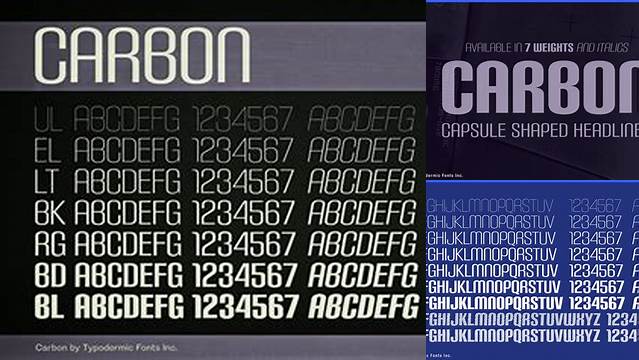
Hey guys! Ever stumbled upon a font that just screams modern and sleek? Chances are, it might just be Carbon font. This typeface has been making waves in the design world, and for good reason. It's versatile, stylish, and perfect for a ton of different projects. So, let’s dive deep into everything you need to know about Carbon font, from where to snag it for free to how to use it like a pro. Whether you’re a seasoned designer or just starting out, this guide will give you the lowdown on making the most of this awesome font.
What is Carbon Font?
So, what exactly is Carbon font? Well, it's a modern sans-serif typeface that’s known for its clean lines and geometric shapes. Imagine a font that’s both futuristic and classic – that’s Carbon in a nutshell. It’s super versatile, meaning you can use it for everything from logos and branding to website headers and body text. Think of it as the Swiss Army knife of fonts; it’s got a tool for every job. The crisp, minimalist design makes it incredibly readable, whether you’re viewing it on a screen or in print. This readability, combined with its stylish appearance, makes Carbon font a favorite among designers who want to convey a sense of innovation and sophistication.
1. Exploring the Origins of Carbon Font
Delving into the origins of Carbon font is like uncovering the history of a modern design marvel. Understanding where a font comes from can give you a deeper appreciation for its design and how to best utilize it. Carbon font, with its sleek and contemporary aesthetic, often has roots in the geometric sans-serif styles that gained popularity in the early 20th century. These fonts, inspired by the Bauhaus movement, emphasized simplicity and functionality. While the exact creator and history can vary depending on the specific Carbon font version, the core principles remain consistent: clean lines, geometric precision, and a modern feel. Knowing this heritage can help you leverage Carbon font in projects where you want to evoke a sense of modernity, innovation, and timeless design.
2. Key Characteristics of Carbon Font
Let's break down the key characteristics of Carbon font that make it so special. First off, it’s a sans-serif font, which means it doesn’t have those little “feet” or serifs at the end of the strokes. This gives it a clean and modern look. The geometric shapes are another standout feature. You’ll notice a lot of perfect circles and straight lines, giving it a structured and almost architectural feel. The font also boasts excellent readability, thanks to its balanced letterforms and ample spacing. This makes it a great choice for both headlines and body text. Finally, Carbon font often comes in various weights, from light to bold, giving you plenty of flexibility to play with different visual hierarchies in your designs. Understanding these characteristics is key to using Carbon font effectively.
4. Carbon Font vs. Other Sans-Serif Fonts
How does Carbon font stack up against other sans-serif fonts? Well, the sans-serif world is a crowded place, with fonts like Helvetica, Arial, and Open Sans being popular choices. Carbon font distinguishes itself with its sharper, more geometric edges and a slightly more modern feel. While Helvetica and Arial are known for their neutrality and wide applicability, Carbon font brings a bit more personality to the table. Open Sans is another great option for readability, but Carbon font often has a stronger visual impact, making it ideal for branding and headlines. Ultimately, the best font depends on the project, but Carbon font is a fantastic contender if you’re looking for something that’s both clean and contemporary.
5. Using Carbon Font in Graphic Design
Time to get practical! How can you use Carbon font in your graphic design projects? Its versatility makes it a winner for a wide range of applications. For logos, its strong, geometric forms can convey a sense of stability and modernity. In website design, Carbon font works beautifully for headers and navigation menus, providing a clean and readable user experience. When it comes to print materials, like brochures and posters, Carbon font's clarity ensures your message gets across effectively. Experiment with different weights and sizes to create visual hierarchy and draw attention to key information. Whether you’re designing a minimalist website or a bold marketing campaign, Carbon font can help you achieve a polished and professional look.
6. Carbon Font in Web Design
In the realm of web design, Carbon font can be a game-changer. Its clean lines and excellent readability make it perfect for creating a user-friendly and visually appealing website. Use it for headlines to grab attention and establish a clear hierarchy, and employ it in body text to ensure a comfortable reading experience. Carbon font also shines in navigation menus, where its clarity helps users easily find their way around your site. Pair it with other fonts strategically – a serif font for body text, for instance – to create a balanced and engaging design. Plus, its modern aesthetic aligns well with contemporary web design trends, helping your site look fresh and up-to-date.
7. Pairing Carbon Font with Other Fonts
Font pairing is an art, and when it comes to Carbon font, finding the right partner can elevate your design to the next level. Since Carbon font is a sans-serif, it often pairs well with serif fonts, creating a pleasing contrast that adds visual interest. Think of pairing it with a classic serif like Garamond or a more modern option like Playfair Display. The key is to balance the clean, geometric nature of Carbon font with the more traditional or decorative elements of the serif font. Another approach is to pair Carbon font with a different sans-serif font that has a softer, more rounded appearance. This can create a harmonious and balanced look while maintaining a modern feel. Experiment and see what combinations resonate with your project’s aesthetic!
8. The Popularity of Carbon Font in Branding
Why is Carbon font so popular in branding? Well, it boils down to its ability to convey a sense of modernity, sophistication, and reliability. These are qualities that many brands strive to project. Its clean lines and geometric shapes give it a professional and trustworthy appearance, making it a great choice for logos, business cards, and marketing materials. Carbon font’s versatility also means it can be adapted to suit a wide range of industries, from tech startups to established corporations. Whether you’re aiming for a minimalist look or something more bold and impactful, Carbon font can be a powerful tool in your branding arsenal.
30. Carbon Font: A Timeless Choice for Designers
In conclusion, Carbon font is a timeless choice for designers seeking a modern, clean, and versatile typeface. Its geometric shapes, excellent readability, and wide range of weights make it suitable for a variety of applications, from logos and branding to website design and print materials. Whether you’re a seasoned designer or just starting out, Carbon font is a valuable addition to your font library. Its ability to convey sophistication, innovation, and reliability makes it a go-to choice for projects that demand a professional and polished look. So go ahead, explore the possibilities of Carbon font and see how it can elevate your designs! Remember to always check the license and respect usage rights.